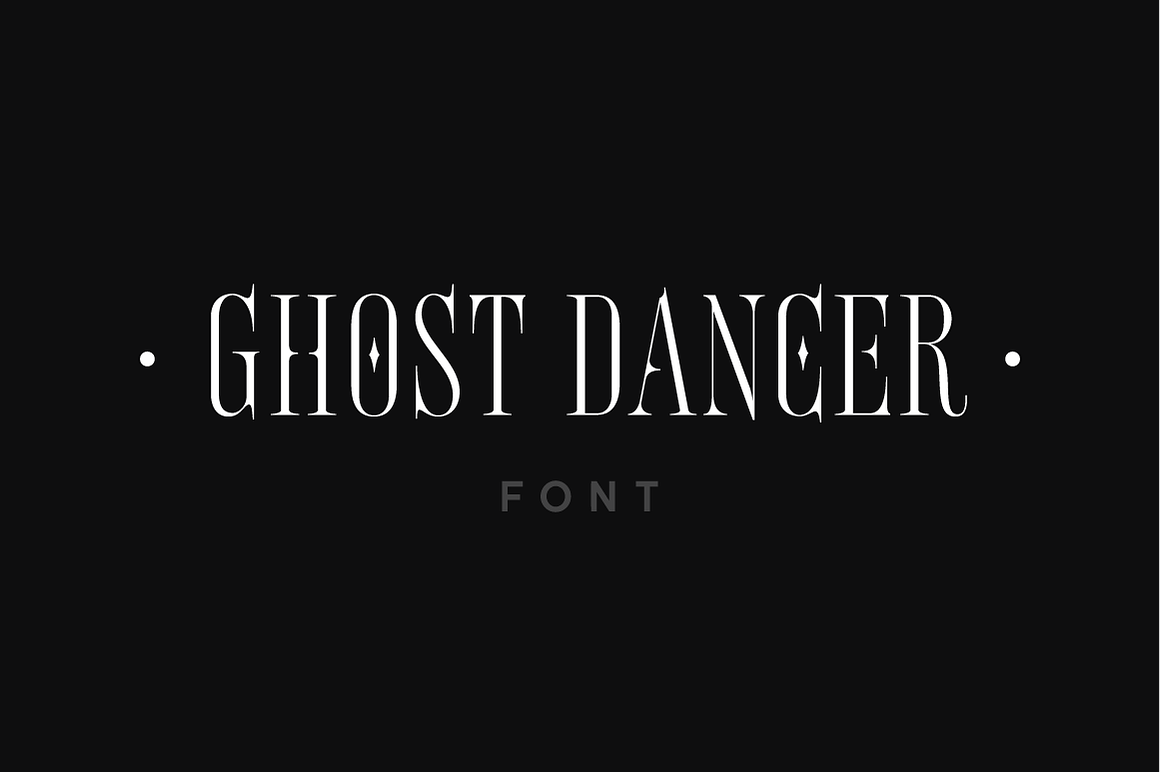
Ghost Dancer Font
Ghost Dancer Font is perfect for mystical branding projects, spiritual wellness centers, ethereal music promotions, supernatural entertainment marketing, alternative therapy practices, and metaphysical product packaging. This haunting typeface excels in paranormal investigation services, meditation app interfaces, tribal art galleries, and any application where otherworldly beauty and spiritual connection create transcendent visual experiences.
What makes Ghost Dancer Font so exciting is its extraordinary ability to capture the fluid grace and mystical energy of spiritual movement through flowing, ethereal letterforms. The font features ghostly curves, dance-like rhythms, and supernatural character shapes that seem to move with invisible wind. Its spectral beauty creates an immediate sense of mystery and spiritual connection that transcends ordinary typography.
Ghost Dancer Font comes in a mystical family including Light, Regular, Medium, Bold, and Spirit weights. Each style features complete uppercase and lowercase character sets, spiritual symbols, ethereal numerals, and otherworldly punctuation marks. The font family also includes flowing alternates, ghostly ligatures, and translucent variations that allow designers to create truly supernatural typographic compositions with authentic spiritual energy.
This mesmerizing typeface transforms ordinary communications into spiritual journeys that connect with the soul. Ghost Dancer Font Free Download offers spiritual practitioners and mystical brands essential typography that honors ancient wisdom while serving contemporary spiritual needs. Whether you're developing brands for healing practices, creating materials for spiritual retreats, or designing packaging for metaphysical products, this font delivers authentic spiritual resonance with professional quality.
The font's ethereal character makes it particularly effective for spiritual teachers, energy healers, meditation centers, and alternative wellness practitioners. Its flowing readability ensures that Ghost Dancer Font maintains clarity while delivering maximum spiritual impact and preserving its distinctive otherworldly personality. The font's ability to evoke transcendence and spiritual connection makes it an invaluable vessel for any project seeking to communicate through the universal language of spirit and connect with audiences through the timeless appeal of mystical wisdom and spiritual dance.